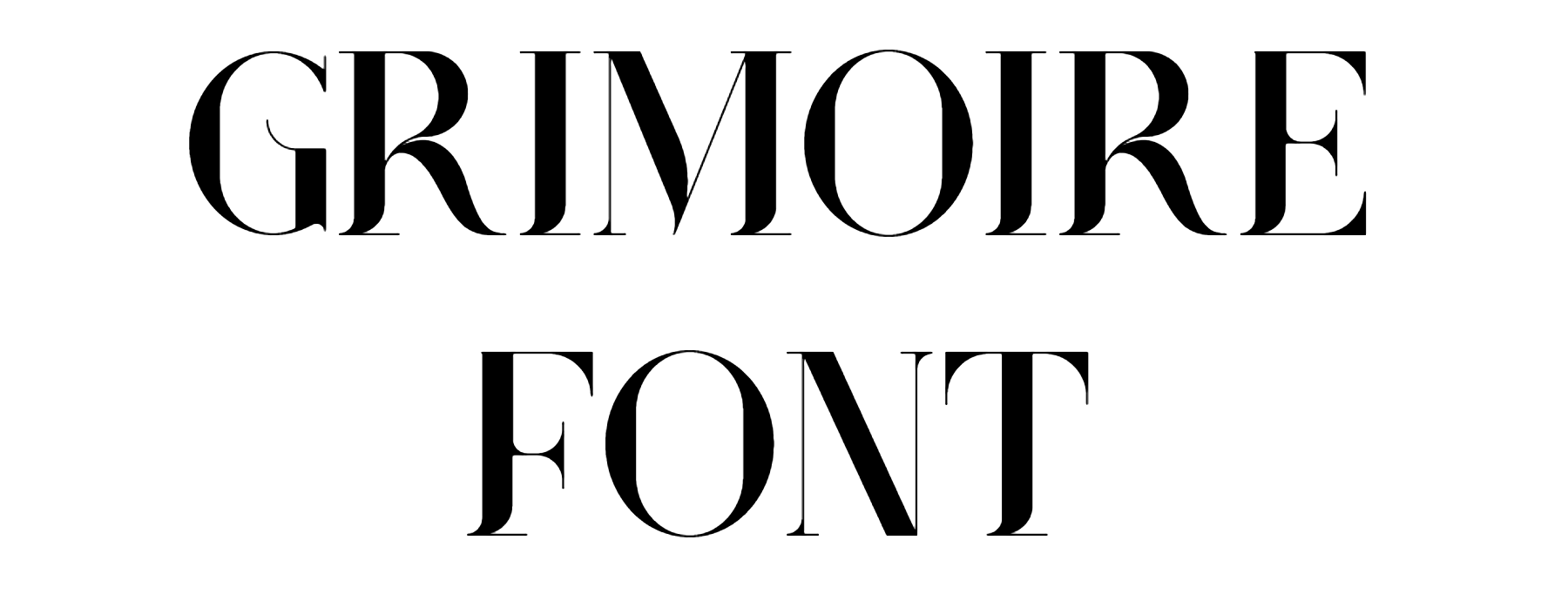
Grimoire
- Designer: Hayinah
- Glyphs: 217
- OpenType features: One stylistic set
- Extra characters: 26 copy-and-paste alternates (Private Use Area)
You get every letter from A to Z in both cases and all the numbers from 0 to 9, which means Grimoire can handle full sentences, dates and prices. Everyday marks like &, !, ? and @ are there too. Thanks to its accented letters, it also works for Spanish, French, German, Portuguese and Italian, not just English.
Where Grimoire Works Best
Designers usually reach for fonts like Grimoire when they're making book covers, magazine headlines and classic branding. Serif fonts shine in headlines and printed text. For long paragraphs on phones, check that it still reads well at small sizes.
Yes. Grimoire includes the accented letters needed for Spanish, French, German, Portuguese and Italian, so it works for more than just English.